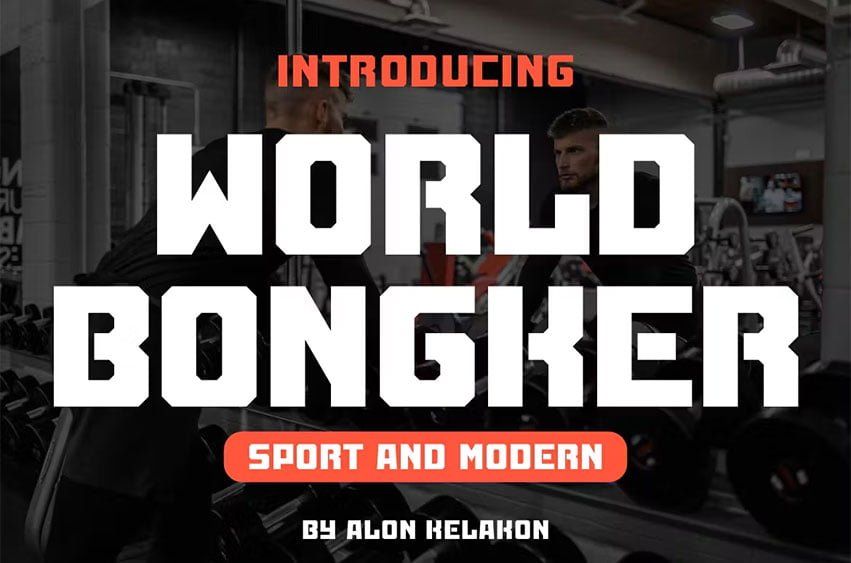
World Bongker Font is unique . Ready to use for your design like labeling, movie sceen, poster, movie title, gigs, album covers, logos, and much more.